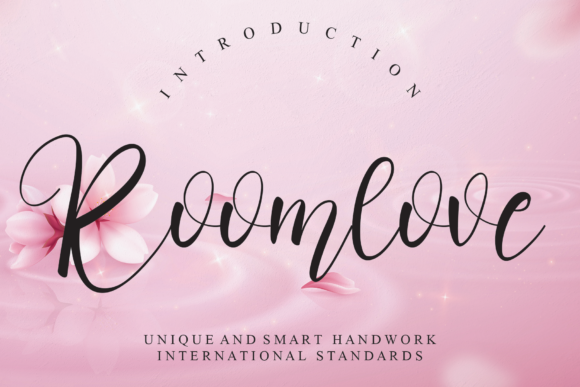
Embrace the Charm of Roomlove: A Handwritten Font that Captivates Hearts
Dive into the world of Roomlove, a captivating handwritten font that exudes elegance and charm. Its delicate strokes and fluid lines evoke a sense of warmth and intimacy, making it the perfect choice for creating designs that resonate with your audience.
Step into the realm of limitless creativity with Roomlove. Its enchanting style breathes life into your projects, whether you're crafting heartfelt invitations, enchanting logos, or captivating social media posts. Let Roomlove's allure weave its magic, transforming your designs into captivating works of art.
Impress your clients with Roomlove's versatility. Perfectly suited for a wide range of projects, it seamlessly adapts to your every need. From wedding invitations that radiate romance to eye-catching branding materials that demand attention, Roomlove rises to the occasion, delivering stunning results that leave a lasting impression.
Journey into the world of Roomlove and discover a font that ignites imagination and sparks creativity. Let its enchanting curves and graceful strokes inspire you to create designs that captivate hearts and leave an indelible mark on your audience.